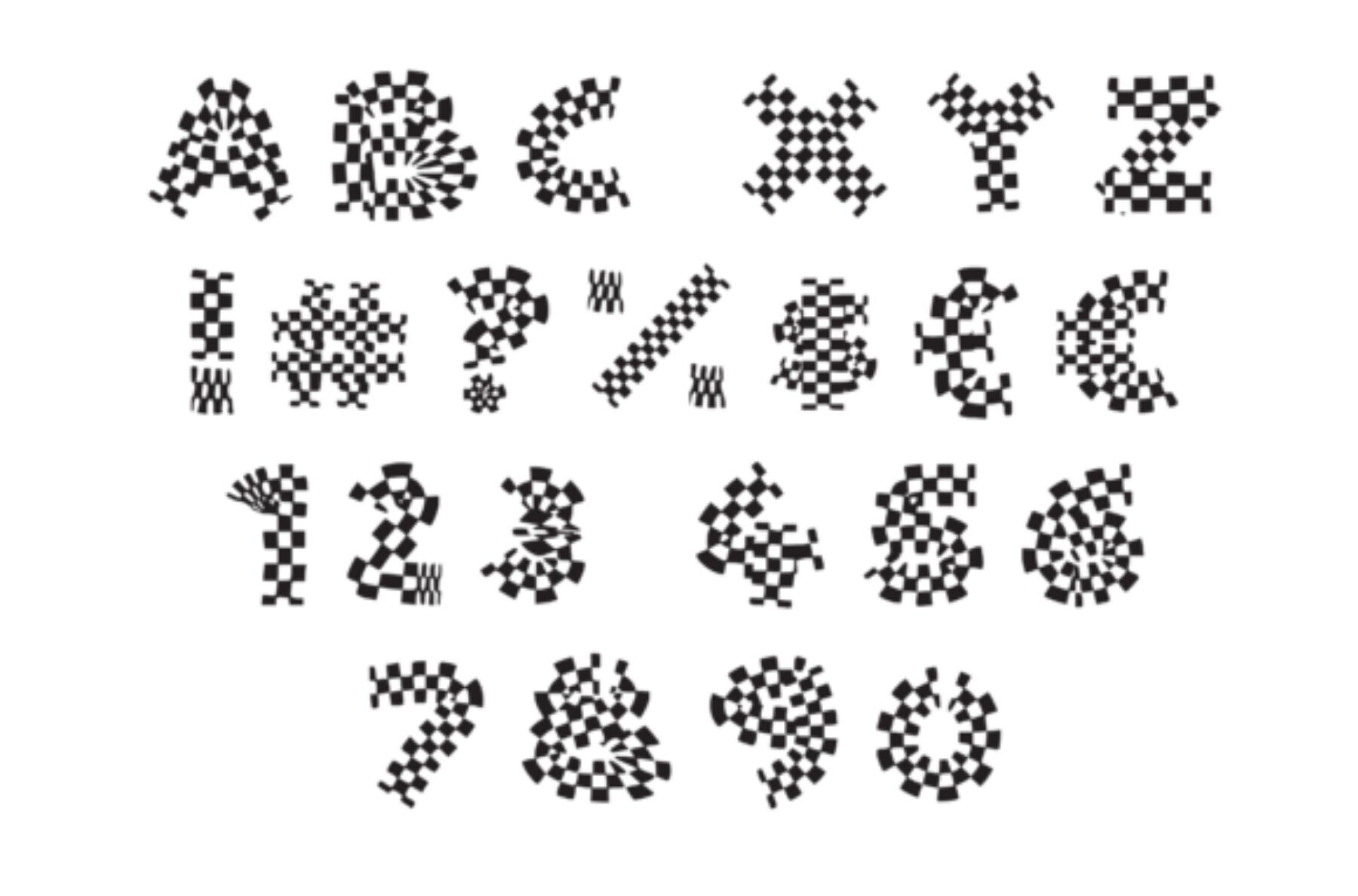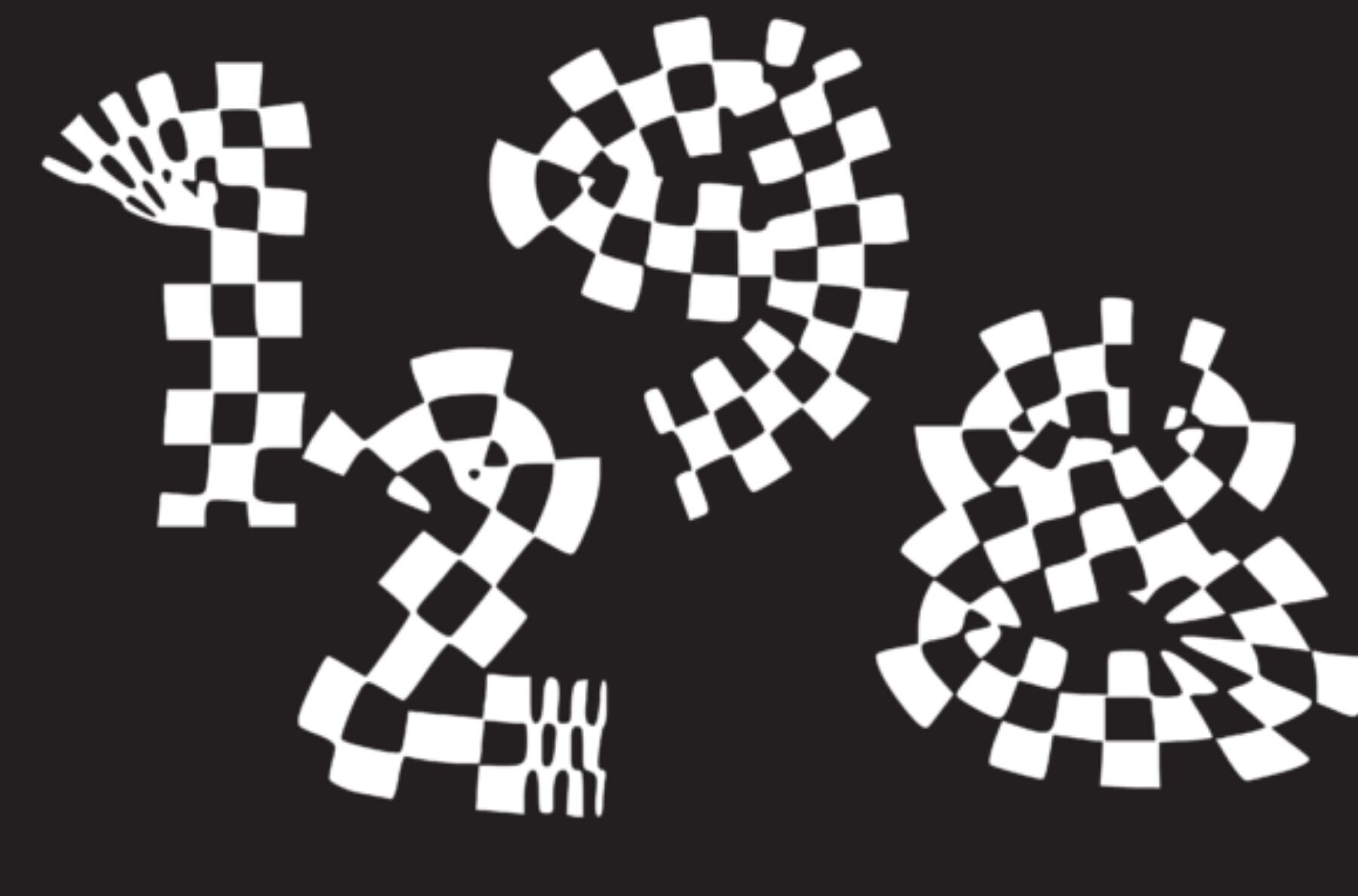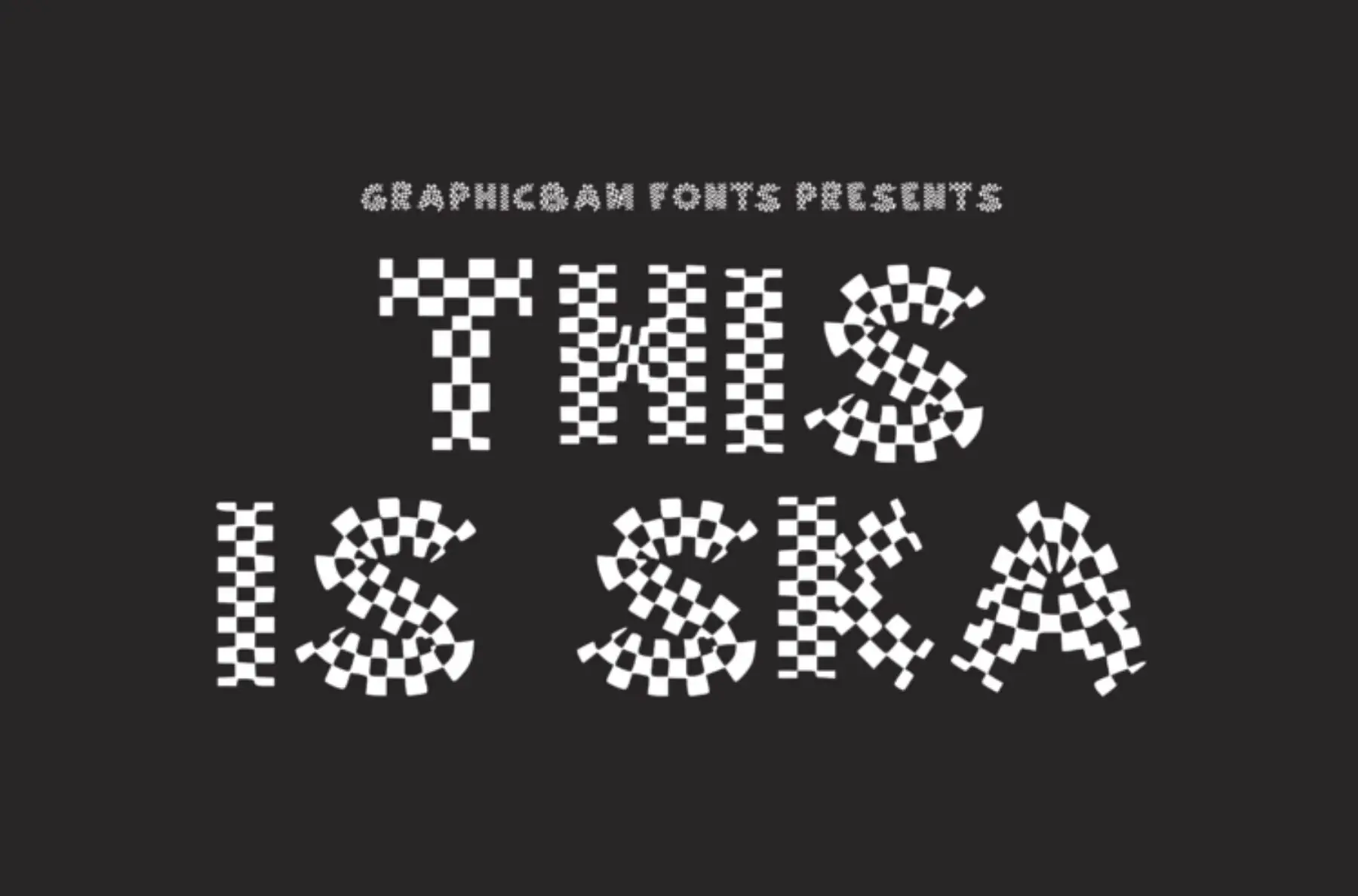
This Is Ska Font
Dive into the vibrant sounds of history with the This Is Ska font. Inspired by the classic chequered patterns of early Jamaican Ska artists and their British followers in the 1980s, this display font is the perfect way to add a touch of retro flair to your musical endeavors.
• Inspired by iconic Ska visuals
• Perfect for music-related designs
• Retro and vibrant aesthetic
Let this visually striking font bring an energetic rhythm to your designs. Whether you're crafting posters, album covers, or event flyers, This Is Ska provides an unforgettable touch.